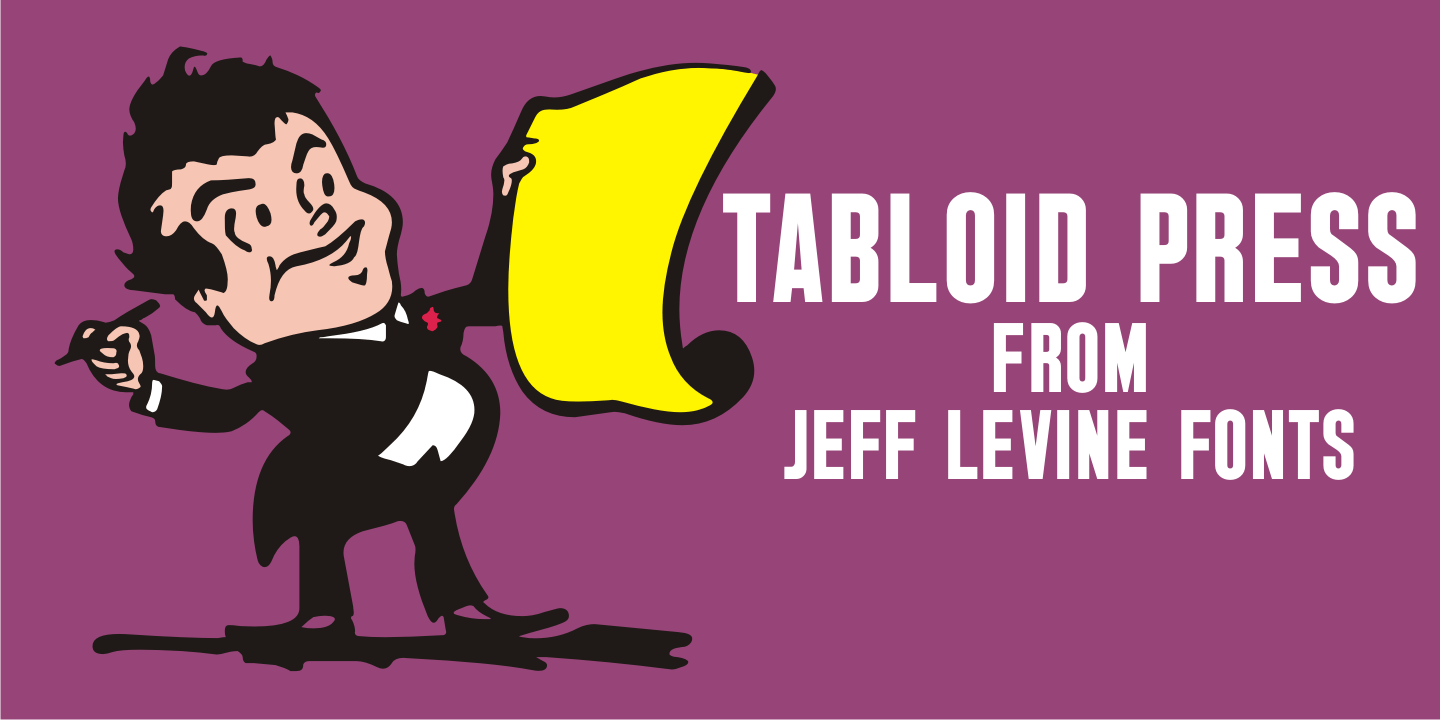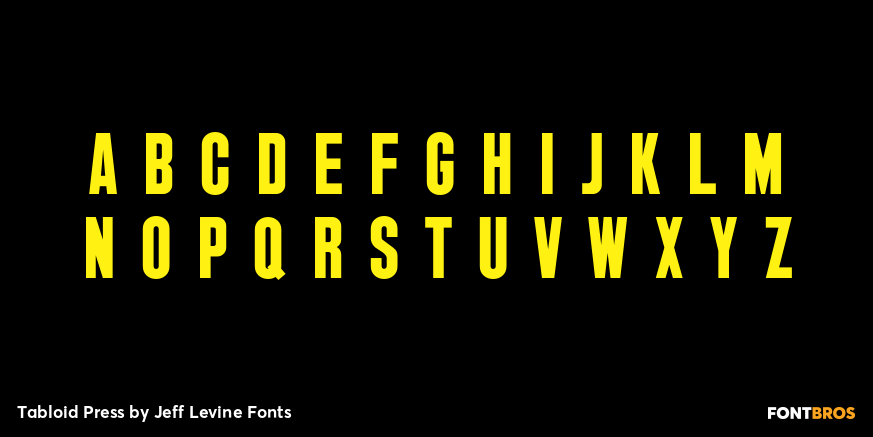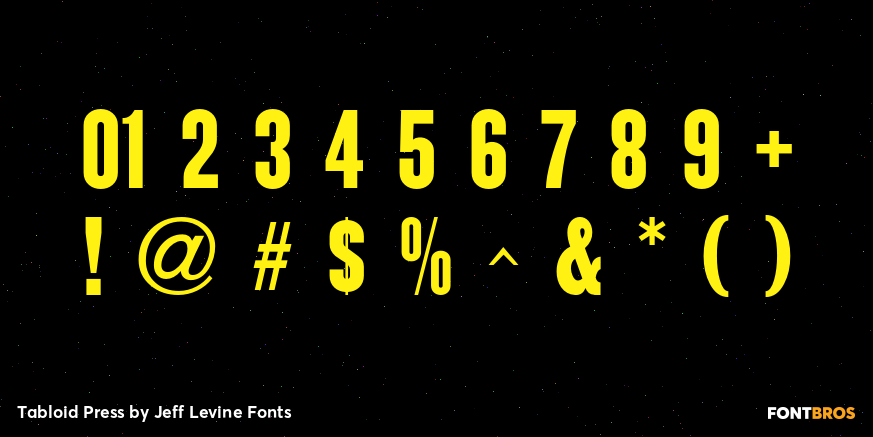
Tabloid Press
Tabloid Press JNL is one of a number of classic typefaces re-drawn from screen captures of actual vintage newspaper headlines.
Tabloid Press by Jeff Levine Fonts